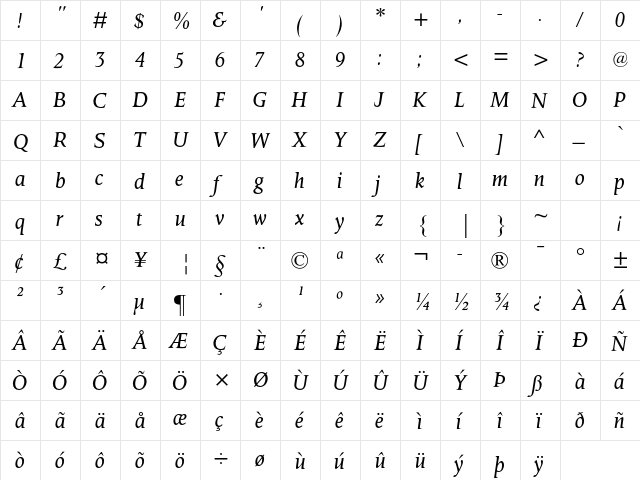
Octavian MT Std Italic
| Designer | Will Carter, David Kindersley |
Design Context for Octavian MT Std Typeface
Octavian MT Std takes a measured approach to typography — its balanced proportions and neutral character make it a reliable workhorse for both digital and print work. The slanted form adds forward momentum and visual energy.
Pro Tip: Try Octavian MT Std for annotation and caption copy alongside an upright companion — the contrast in angle creates a dynamic but ordered typographic system.